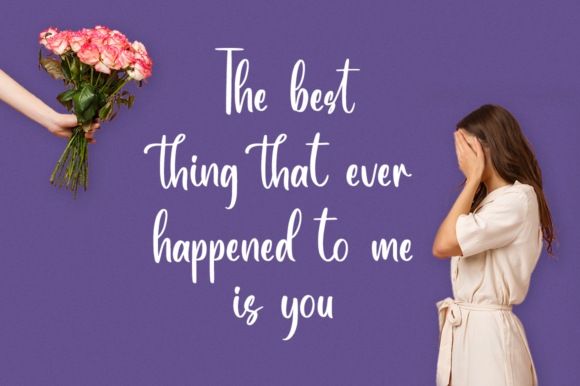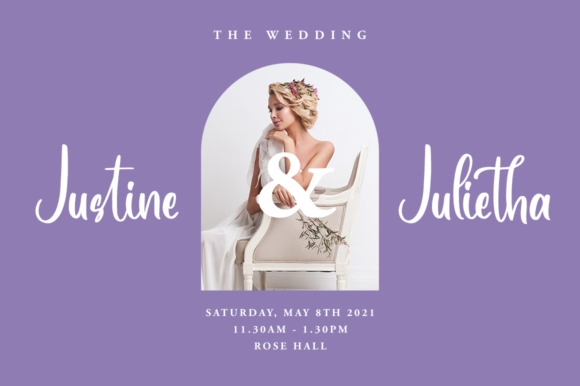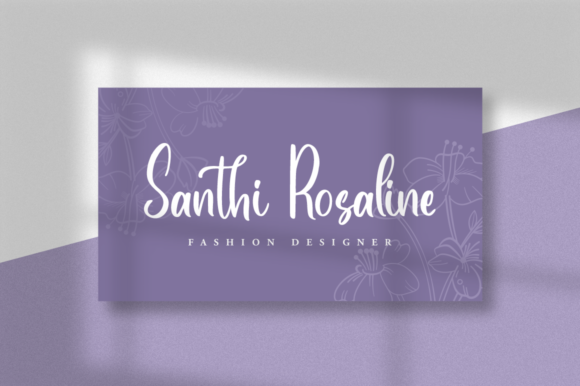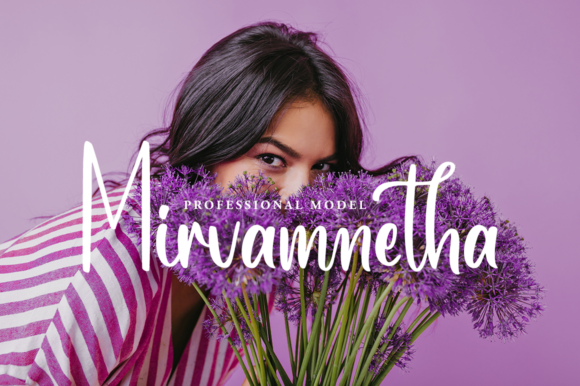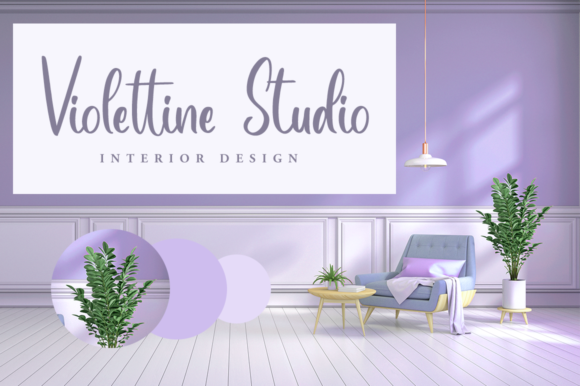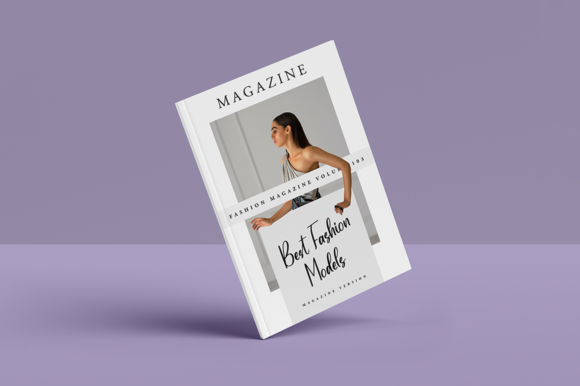
Introduction to Berlossiana Font
Berlossiana is a beautiful and elegant handwritten font.
Its modern and classy look makes this typeface the perfect choice for creating outstanding DIY projects .